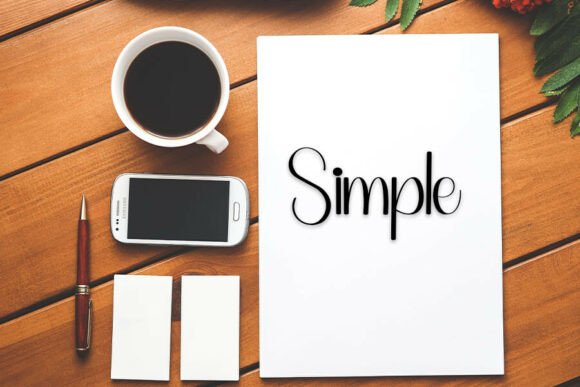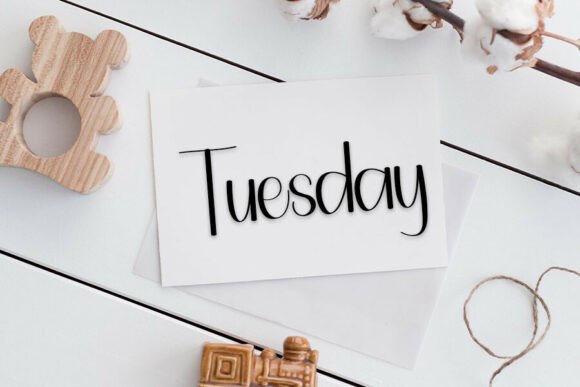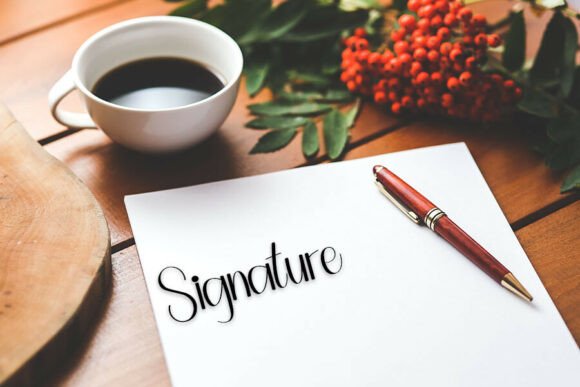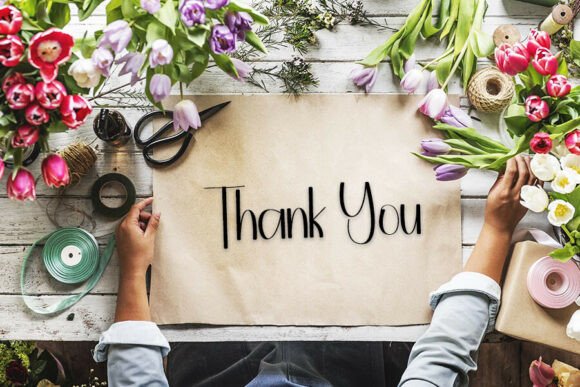
Introduction to Chicken Burger Font
Have you ever been brainstorming ideas for a creative project, only to be stuck on finding the perfect font to match your vision? It’s like searching for the missing piece of a puzzle – frustrating, yet essential to bring your design to life. I’ve been there too, and that’s why I’m excited to introduce you to the Chicken Burger Font, a sweet and cursive handwritten font that’s sure to add a touch of elegance to your next project.
Whether you’re working on a branding campaign, designing a wedding invitation, or creating a lookbook for your fashion brand, the Chicken Burger Font is the perfect addition to your design resource. Its gentle, romantic feel will transport your audience to a world of joy and sophistication, making it a valuable asset for any designer looking to elevate their work.
Key Features of Chicken Burger Font
- High-quality design resource perfect for creative projects, including restaurant menus, food blogs, and social media promotions.
- Features a transparent background, making it easy to overlay on images or use as a standalone design element.
- Designed with a bold, modern aesthetic, ideal for showcasing food items like chicken burgers in a visually appealing way.
- Includes multiple font styles and weights, offering flexibility for designers to create unique and engaging content.
Honest Review: Chicken Burger Font
I recently had the chance to work with the Chicken Burger Font, and I must say it was a pleasant experience. As a designer, I appreciate fonts that are both visually appealing and easy to use. ✨ The Chicken Burger Font delivers on both fronts, with its modern and playful design making it perfect for creative projects.
The font comes with a transparent background, which is always a plus when working on designs that require a lot of layering. I also appreciate that it’s a high-quality font, making it suitable for both personal and commercial use.
- Modern and playful design
- High-quality font
- Not suitable for complex typography
- No support for right-to-left languages
Overall, I’m impressed with the Chicken Burger Font. It’s a great design resource that’s perfect for designers looking for a modern and playful font. While it has some limitations, I believe it’s a great addition to any designer’s toolkit.
The Chicken Burger Font is a high-quality design resource ideal for creative projects. With its transparent background, this font is perfect for adding a touch of personality to your designs.
The Chicken Burger Font is ideal for use in food-related designs, such as restaurant menus, food blogs, and advertising materials. It’s also great for use in creative projects, such as posters, flyers, and social media graphics.